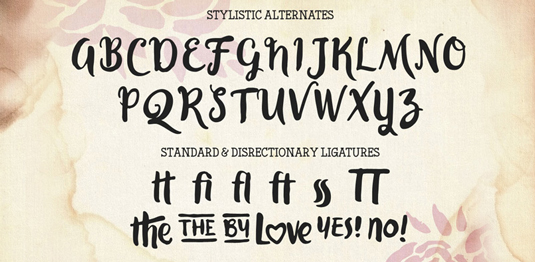
Font of the day: Fonderful
Each day of the week we showcase one of our favourite fonts – today it's Fonderful from Locomotype.
Fonderful from Locomotype
Fonderful from Locomotype is a described on HypeForType as 'a rich, smooth hand-painted font that's contemporary with warm, welcoming vibes and cool detail – suitable for posters, headlines and more'.